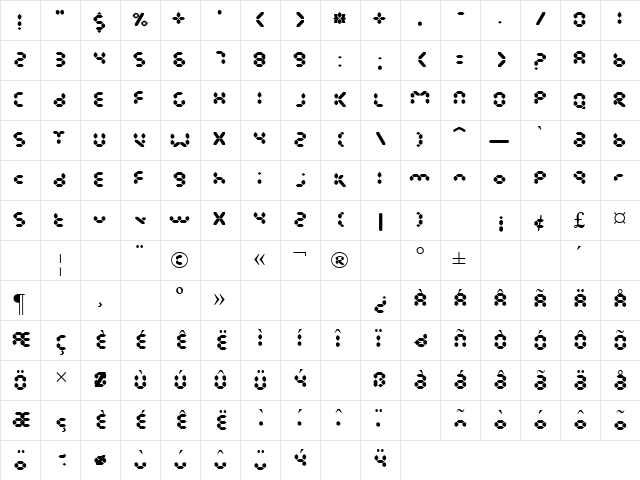
EndlessShowroom Black
Design Context for EndlessShowroom Typeface
EndlessShowroom is a composed and adaptable typeface that performs quietly and consistently across a wide range of design contexts.
Pro Tip: Use EndlessShowroom in both headline and body roles to test its range before committing to a single application.